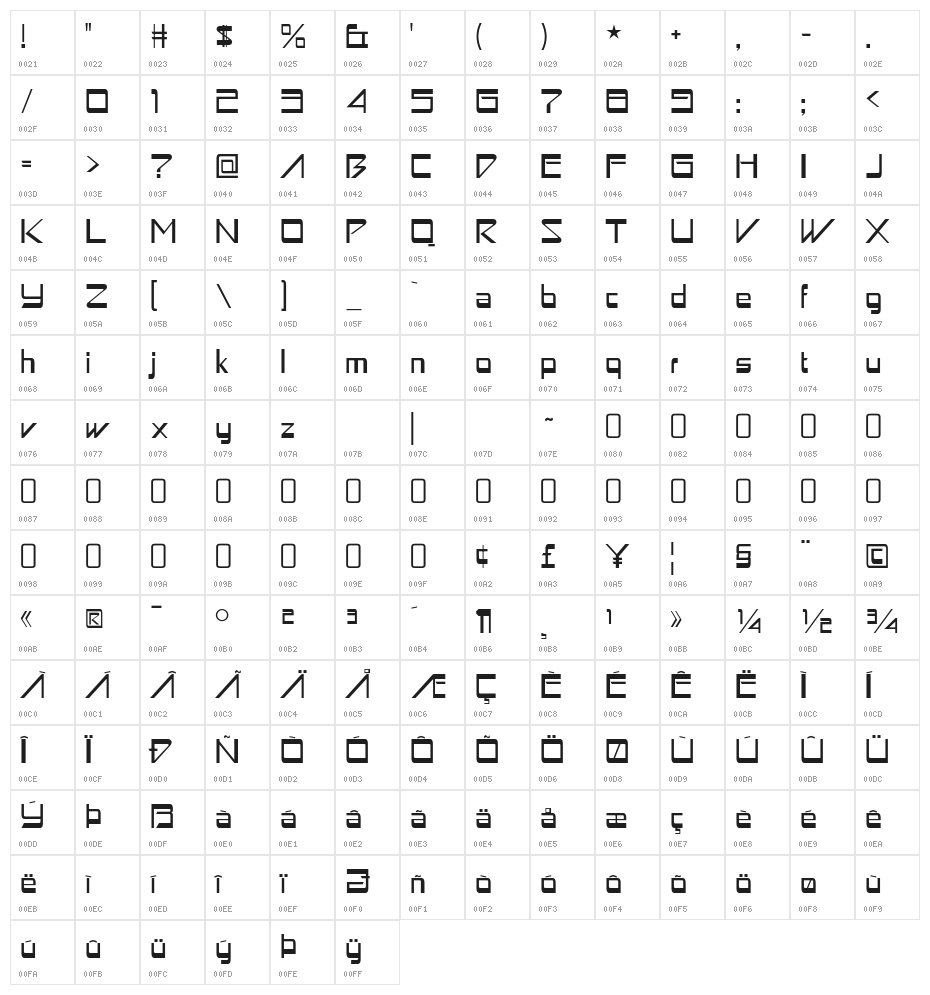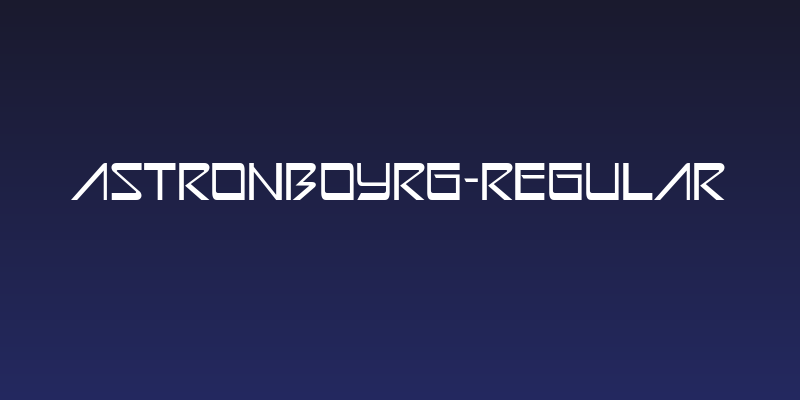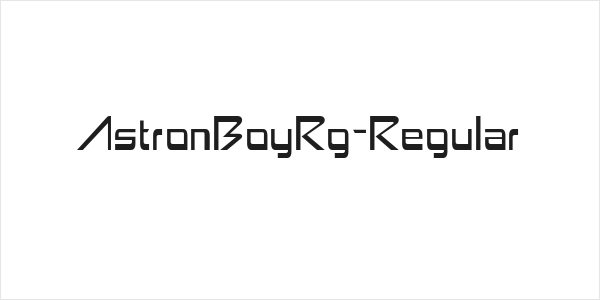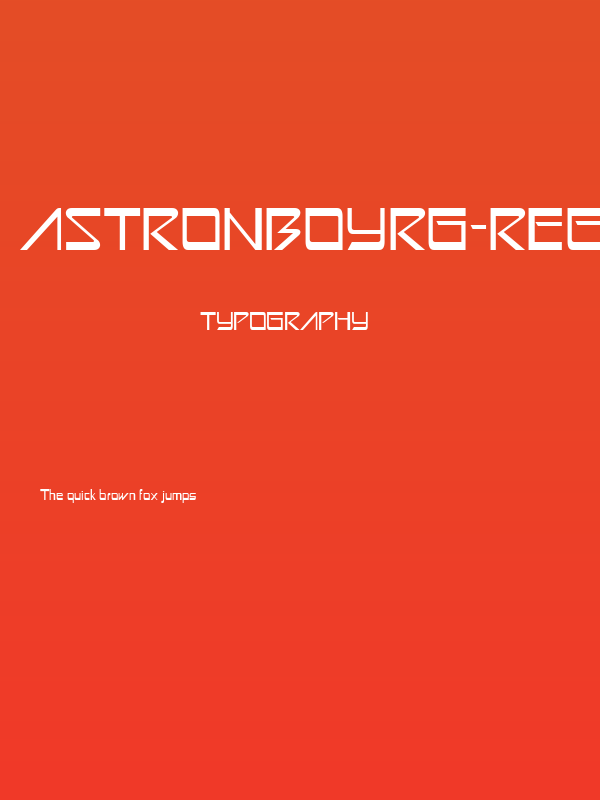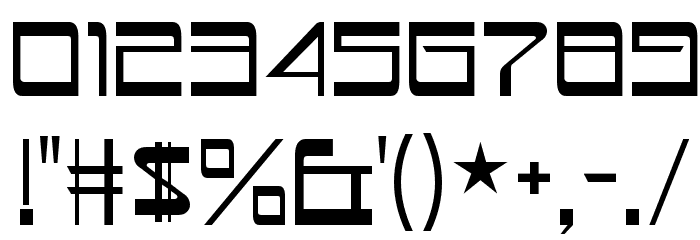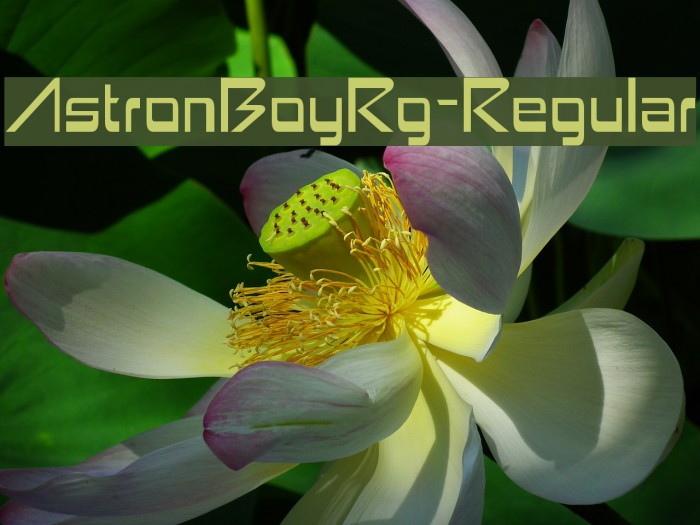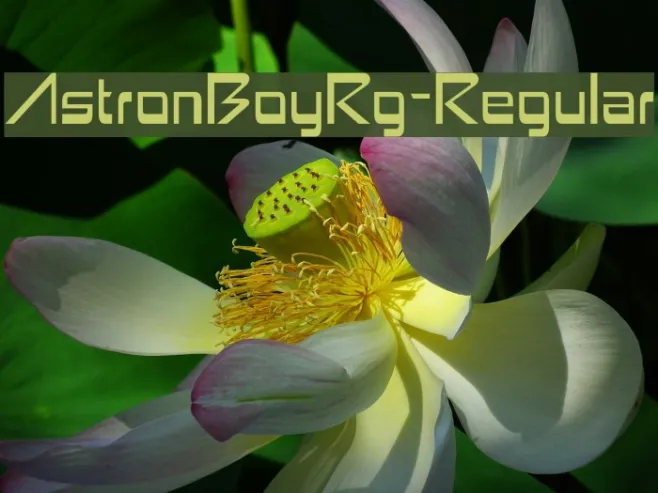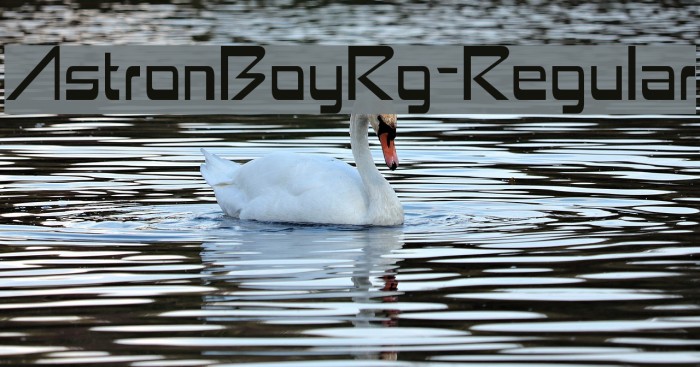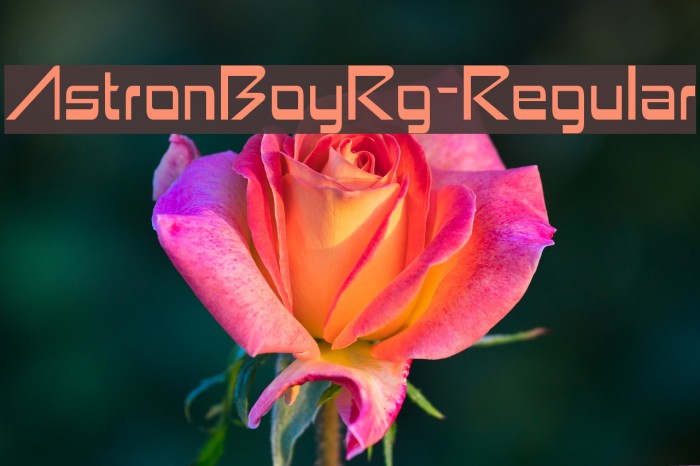
AstronBoyRg-Regular Font
AstronBoyRg-Regular Description
This font features a futuristic and geometric design, characterized by sharp angles and clean lines. The uppercase letters have a distinct angularity, with some characters like 'A', 'B', and 'R' incorporating unique cut-out shapes that add to the modern aesthetic. The lowercase letters maintain a consistent style, with rounded edges that contrast the sharpness of the uppercase. Numbers are bold and clear, making them highly legible. Special characters are designed to match the overall geometric theme, ensuring a cohesive look across all glyphs. This font is ideal for projects that require a modern and tech-inspired appearance.
| Proposed Projects | Ideal for tech branding, sci-fi themed designs, and modern digital interfaces. |